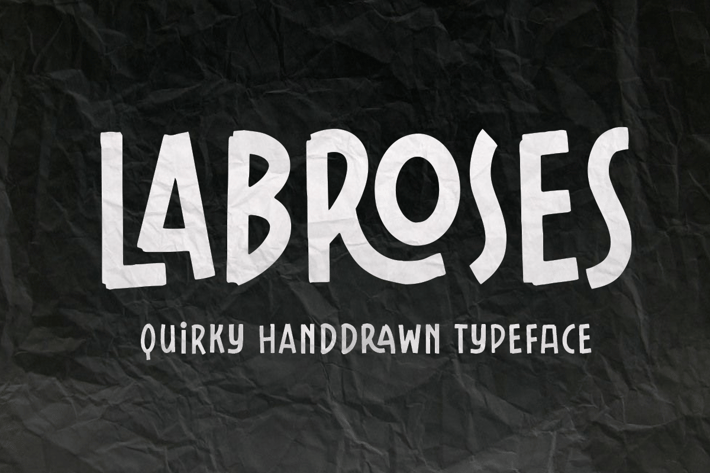
Labroses Handdrawn Typeface
Labroses is a family sans serif font designed with carefully handcrafted. Also suitable for branding, T-shirt, Wedding Invitation, Classic Design, Logotype, and any project. With two style make you easier to design everythings.
Multilingual Support support many different languages 20+ .